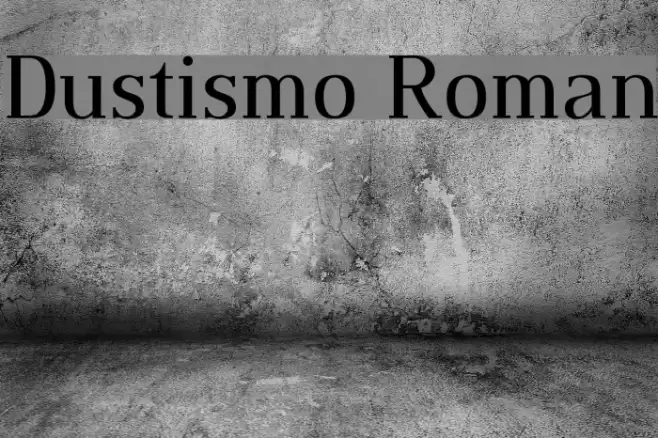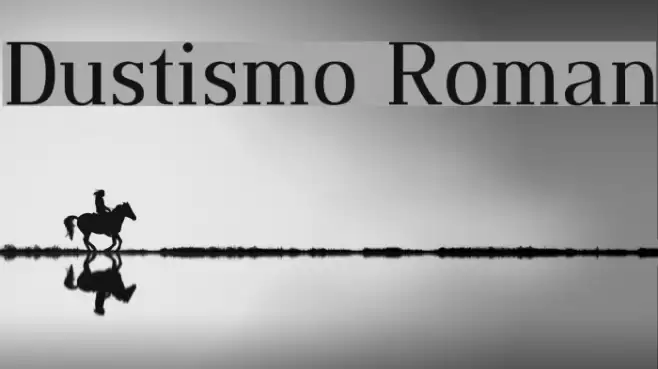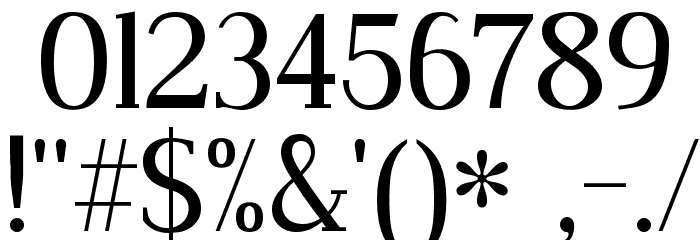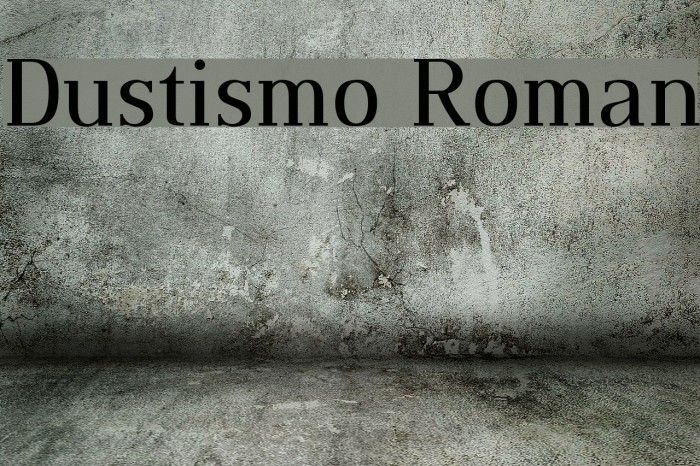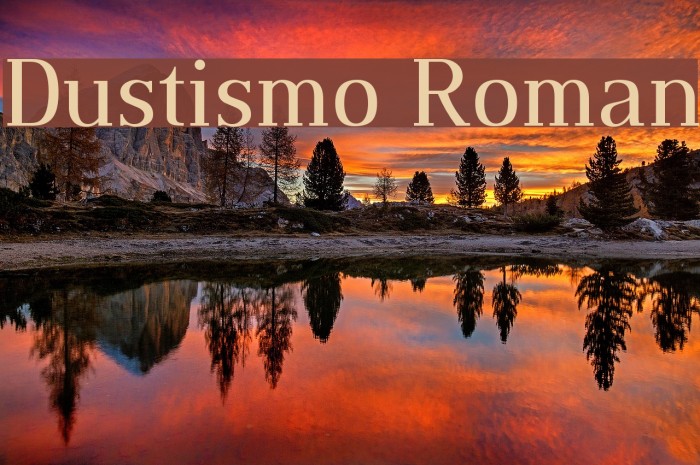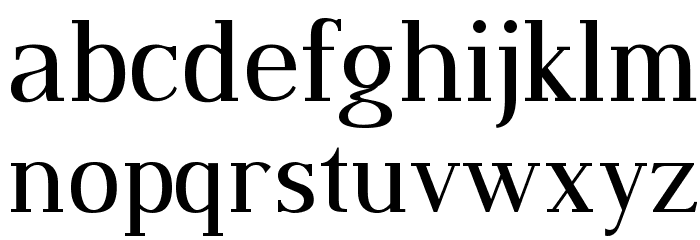
Dustismo Roman Font
Dustismo Roman Description
This font features a classic serif style with a modern twist, characterized by its clean and elegant lines. The uppercase letters are bold and commanding, while the lowercase letters maintain a refined and balanced appearance. The numerals are distinct and easy to read, making them suitable for various applications. The special characters are well-designed, complementing the overall aesthetic of the font. Its versatility makes it ideal for both digital and print media, offering a professional and sophisticated look.
A modern serif font with clean lines and elegant style from Serif fonts.
- Proposed Projects: Ideal for editorial design, branding, and formal invitations.
- Overall Style: Classic